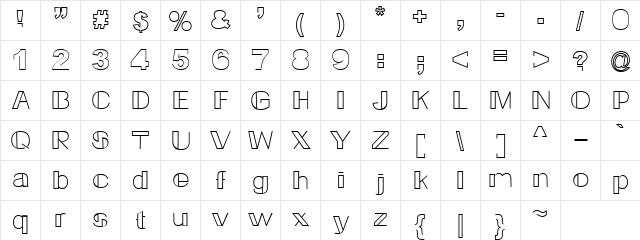
Friesian Regular
| Foundry | Kayleigh Anna Emede |
| Designer | Kayleigh Anna Emede |
Design Context for Friesian Typeface
Friesian takes a measured approach to typography — its balanced proportions and neutral character make it a reliable workhorse for both digital and print work.